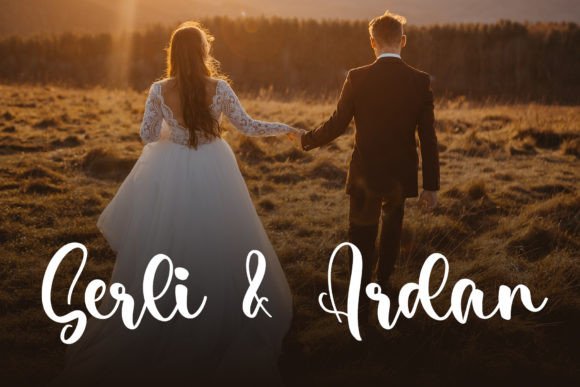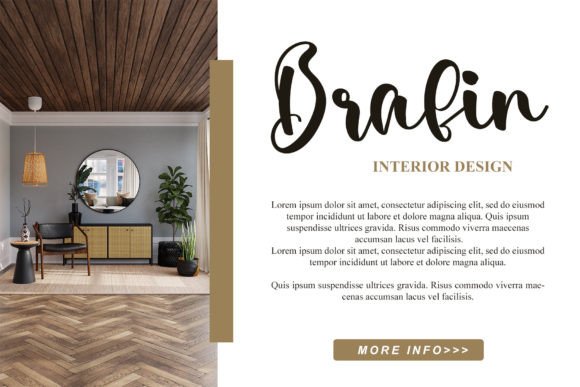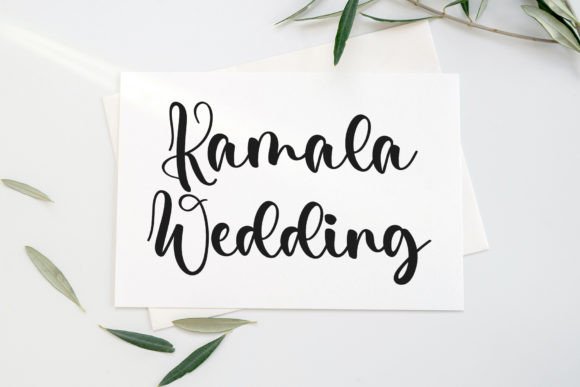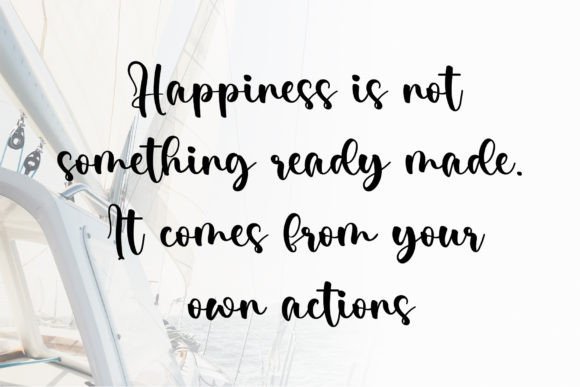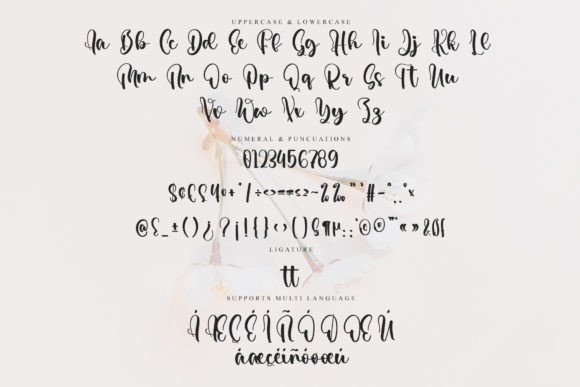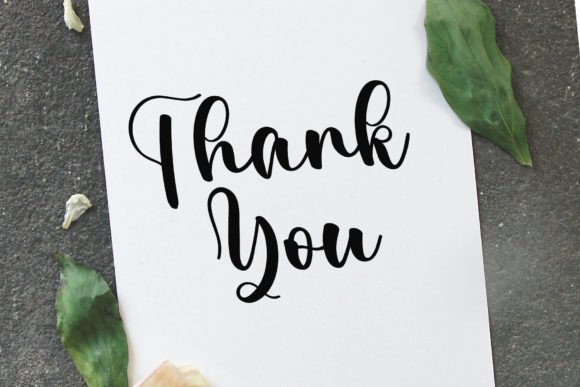
Introducing Defrive Font: Elevate Your Designs with Timeless Elegance
In the world of typography, a well-crafted font can make all the difference in elevating your design projects from ordinary to extraordinary. If you’re a designer, crafter, or simply someone who appreciates the art of beautiful lettering, you’re in luck. Meet Defrive Font, a stylish handwritten font that embodies the essence of contemporary elegance with a nod to timeless classic calligraphy.
The Inspiration Behind Defrive
Defrive Font is the result of meticulous craftsmanship, drawing inspiration from the classic calligraphic styles that have stood the test of time. Its creators aimed to capture the essence of traditional lettering while infusing it with a modern twist, making it perfect for a wide range of design applications. Whether you’re working on a branding project, crafting a logo, or simply looking to add a touch of sophistication to your digital or print materials, Defrive is designed to impress.
Key Features of Defrive Font
• Contemporary Atmosphere: Defrive boasts a fresh and modern feel, making it ideal for designers looking for a font that bridges the gap between classic elegance and contemporary style.
• Impeccable Form: Each letterform in Defrive has been carefully crafted to ensure balance, readability, and aesthetic appeal. The font’s impeccable form makes it suitable for both body text and headlines.
• Balanced and Varied: Defrive offers a range of characters and glyphs, providing designers with the flexibility to create visually engaging and dynamic text. Its balanced design ensures that your text remains clear and legible, even at smaller sizes.
Why Choose Defrive Font?
For designers and crafters, the right font can be a game-changer. Here are a few reasons why Defrive Font should be at the top of your list:
• Versatility: Defrive’s versatile design makes it suitable for a wide range of projects, from luxury branding and advertising to packaging and digital media.
• Elegance: With its roots in classic calligraphy, Defrive brings an air of sophistication and elegance to any design, helping you to create a lasting impression.
• User-Friendly: Designed with the user in mind, Defrive is easy to read and works well across different mediums, ensuring your message is communicated effectively.
Using Defrive Font in Your Projects
• Branding and Logos: Use Defrive to create a distinctive brand identity that stands out. Its unique character can help convey your brand’s personality and values.
• Digital and Print Media: Whether you’re designing a website, social media graphics, or print materials like brochures and posters, Defrive can add a touch of class and professionalism.
• Pairing with Other Fonts: For added versatility, experiment with pairing Defrive with other fonts to create visual interest and hierarchy in your designs.
Defrive Font is more than just a typeface; it’s a design tool that can elevate your projects to new heights. With its stylish appearance, impeccable form, and versatile nature, it’s an excellent choice for designers and crafters looking to infuse their work with a sense of timeless elegance and contemporary flair. Whether you’re aiming to create stunning visual content or simply looking for a reliable font for your next project, Defrive is definitely worth considering.